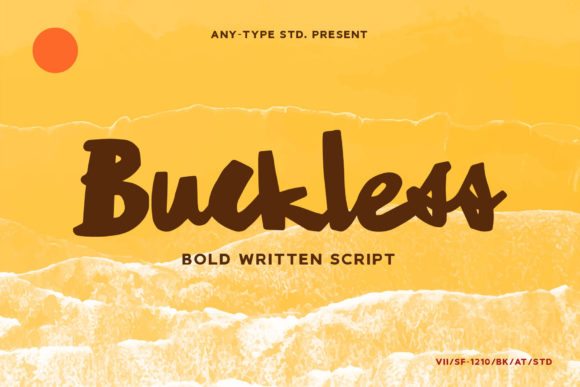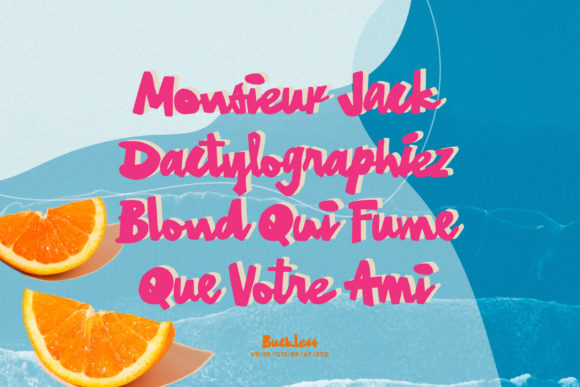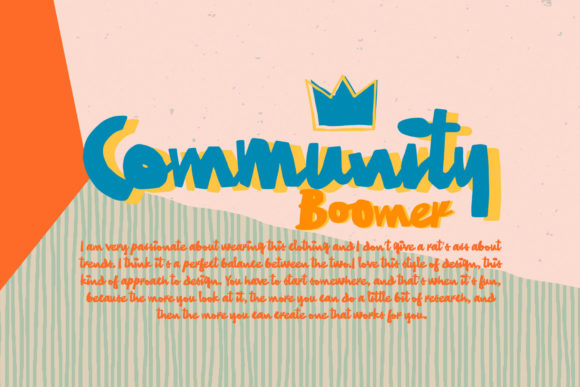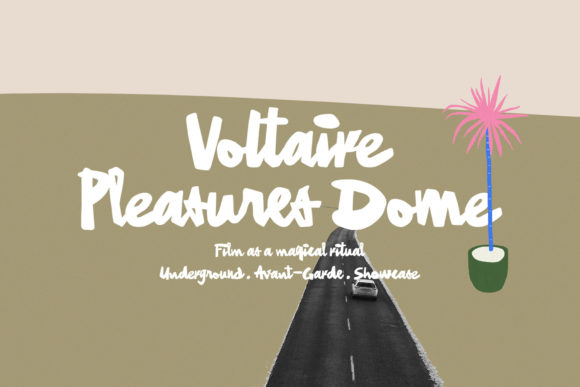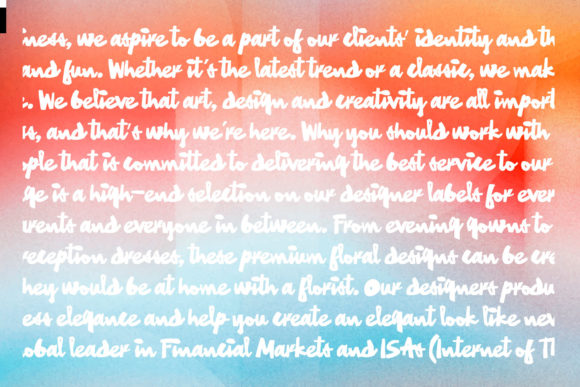
Buckless Script Font
Buckless Script is a chic and friendly handwritten font.
It is the best choice for creating eye catching logos, branding and quotes. Every letter has a unique and beautiful touch, which will make your design come alive!